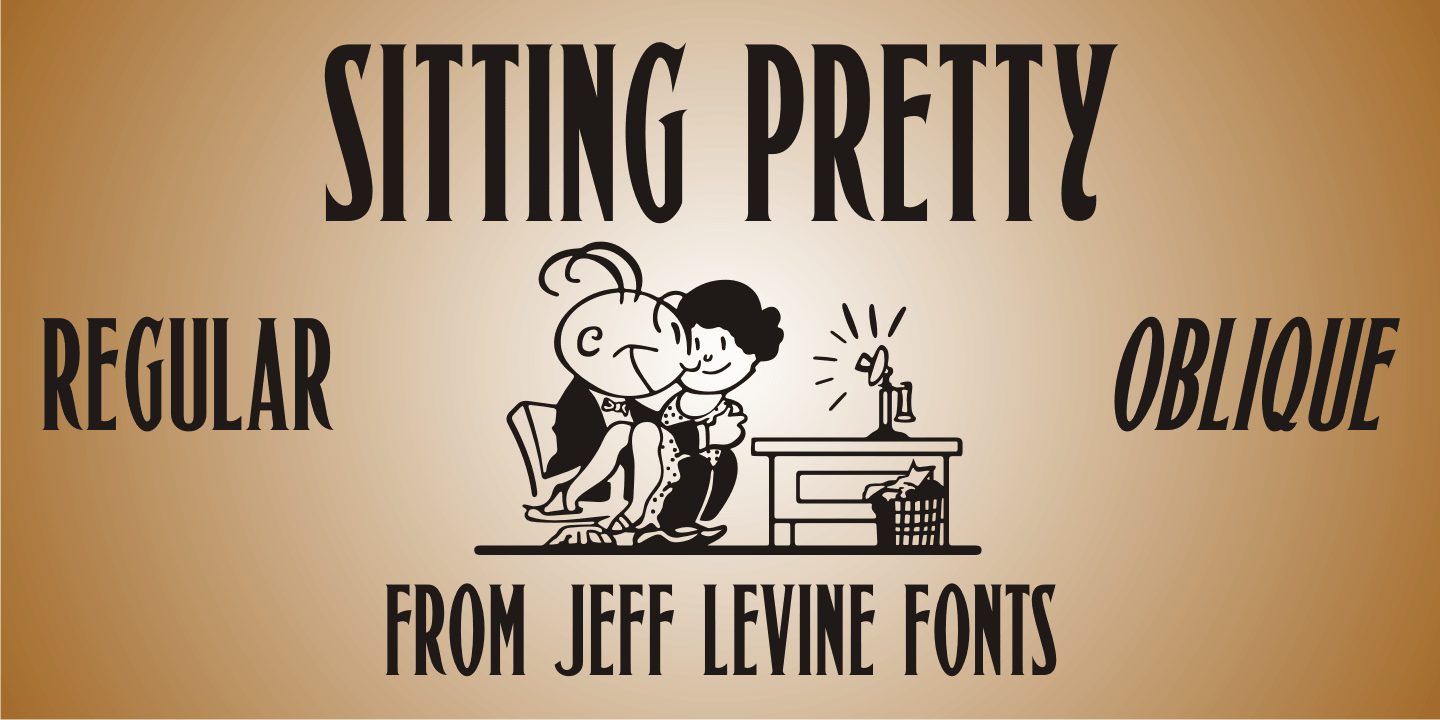
Sitting Pretty JNL is a art nouveau font family. This typeface has two styles and was published by Jeff Levine Fonts.
Sheet music for the 1923 tune “I’m Sitting Pretty (In A Pretty Little City)” had the main part of the title hand lettered in an Art Nouveau condensed Roman type design which became the inspiration for Sitting Pretty JNL.